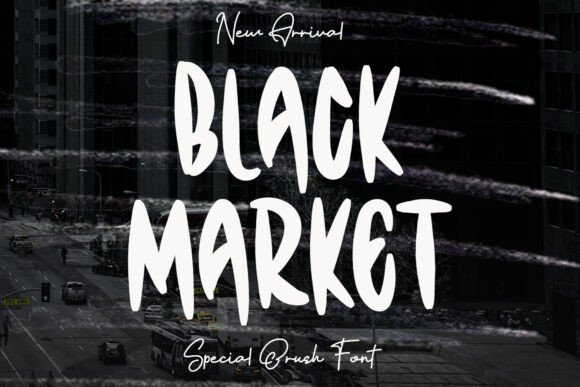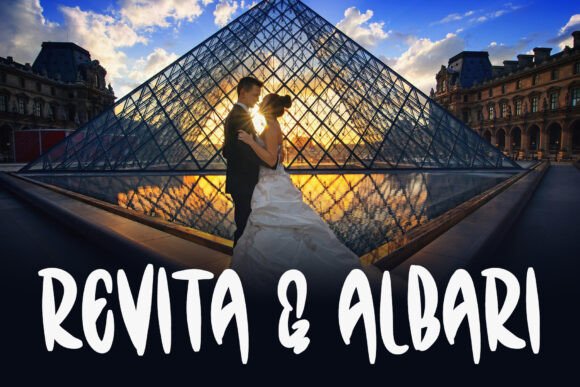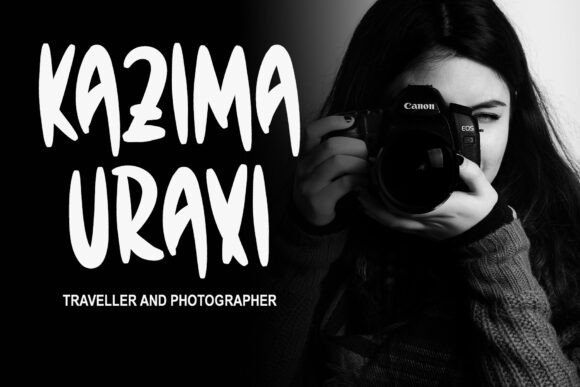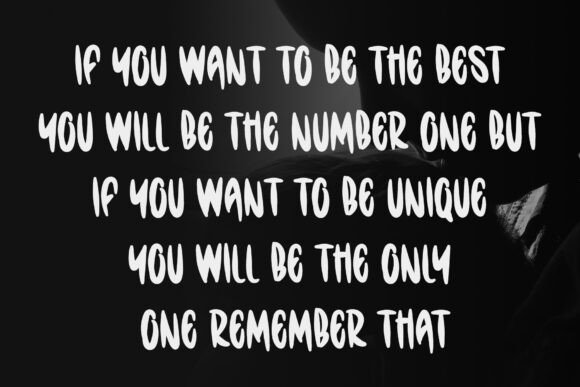
Black Market Font: A Bold Display Font for Headline Designs
About the Black Market Font
From logos to headlines, the Black Market Font is the perfect choice for making a lasting impression. Black Market is a beautiful display font perfect for magazines and crafts. Add it to your fonts library, and use it to create spectacular designs!
Black Market excels as a display font for headlines, posters, and short impactful branding elements. Its strong character makes it ideal for projects with a bold, rebellious, or edgy aesthetic – think streetwear brands, music posters, or edgy magazine covers. Avoid using it for body text or lengthy paragraphs; its highly stylized forms are not legible at smaller sizes.
For optimal visual harmony, pair Black Market with a clean sans-serif like Open Sans for body copy or a geometric sans-serif like Futura for a modern contrast. A more subtle pairing could be achieved with a classic serif like Garamond, allowing Black Market to retain its headline dominance while maintaining a sense of sophisticated balance.
Its inherent personality is confident and assertive, making it unsuitable for projects requiring a delicate or friendly feel.
Black Market Font Usage Examples
Black Market Font Example